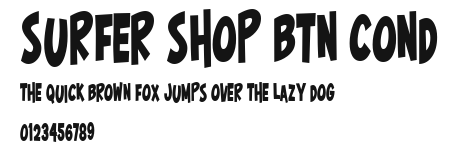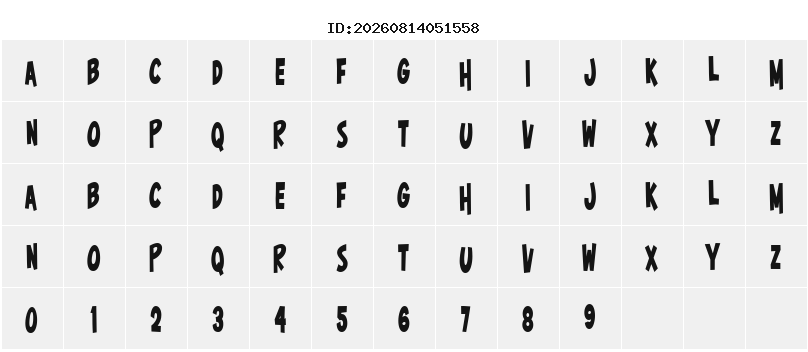
• Font Name: Surfer Shop BTN Cond
About Surfer Shop BTN Cond.ttf
Surfer Shop BTN Cond.ttf is a modern, elegant sans-serif font designed for ultimate readability and visual harmony. Perfect for branding, headlines, web design, and print materials.